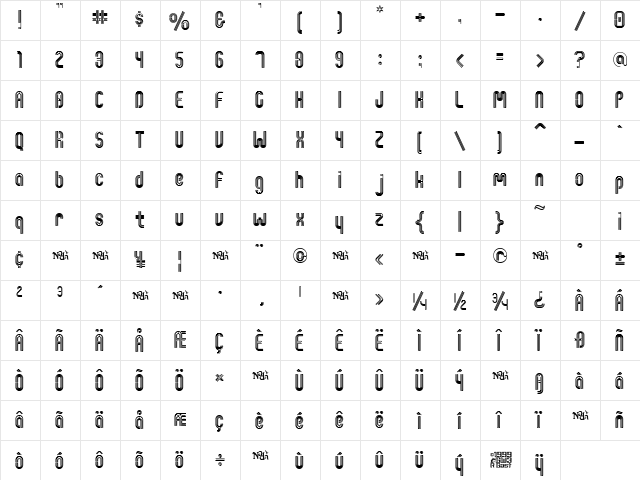
ShineOn Regular
Design Context for ShineOn Typeface
ShineOn channels digital-age aesthetics through its sharp, structured letterforms — ideal for brands that want to signal innovation.
Pro Tip: Try ShineOn with generous letter-spacing in UI labels and navigation — the geometric forms benefit from room to breathe.